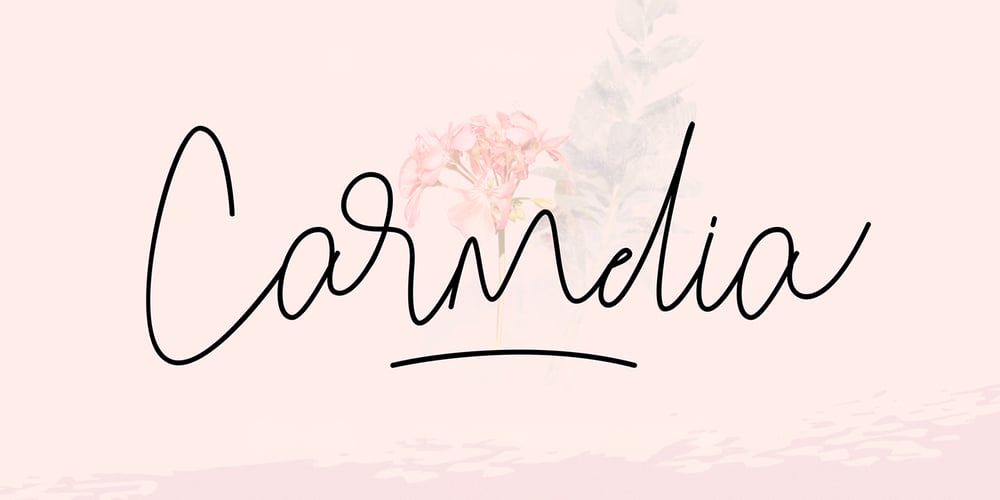
Carmelia Font Family was designed by Virgiawan Listanto and published by Stringlabs Creative Studio. Carmelia contains 1 styles and family package options. Carmelia is a gorgeous script with a unique style. Fall in love with its modern approach to design! It’s perfect for logos, wedding invitations, signatures, advertising and much more! Carmelia is a flowing and elegant handwritten font, created with the help of a brush pen. Get inspired by its unique and beautiful style and add it to your favorite designs!